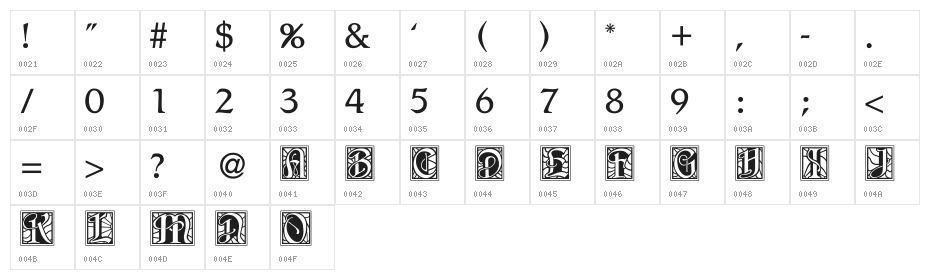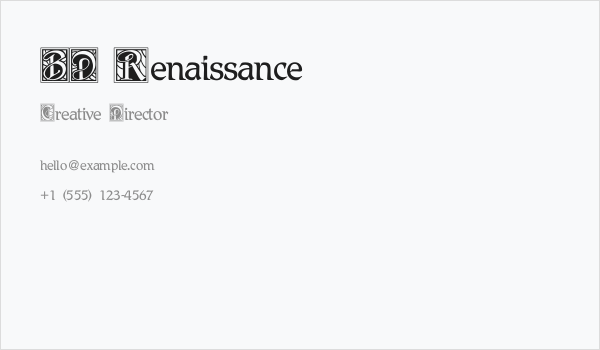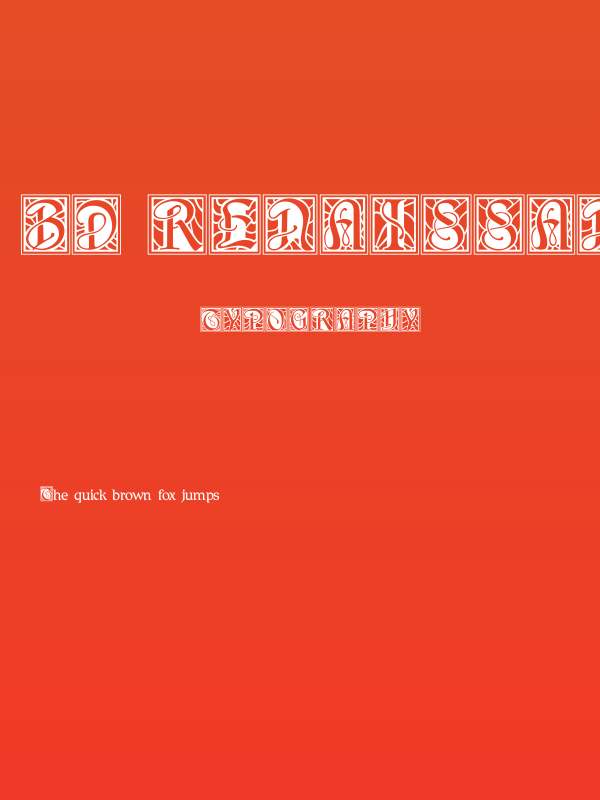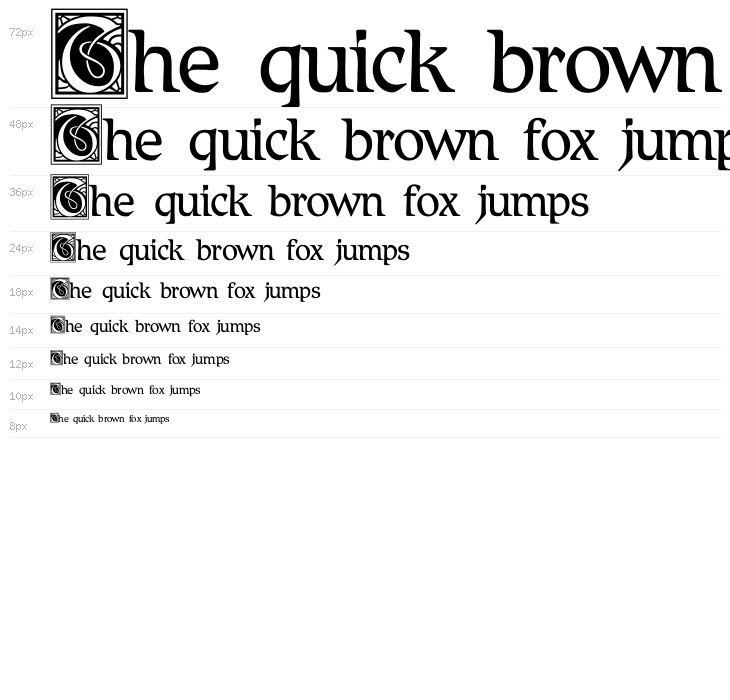
BD Renaissance Font
BD Renaissance Description
This font presents a unique blend of classic and modern elements, characterized by its ornate and decorative uppercase letters, each enclosed within a square frame. The lowercase letters are more traditional, featuring elegant curves and a moderate contrast in stroke thickness, which adds a touch of sophistication. The numerals are clear and consistent with the overall style, ensuring readability. Special characters are thoughtfully designed to complement the font's aesthetic, making it versatile for various design needs.
| Overall Style | Classic, Decorative |
| Use Case | Headlines, Logos, Decorative text |
| Proposed Projects | Ideal for projects that require a touch of elegance and sophistication, such as wedding invitations, luxury branding, book covers, and decorative signage. |